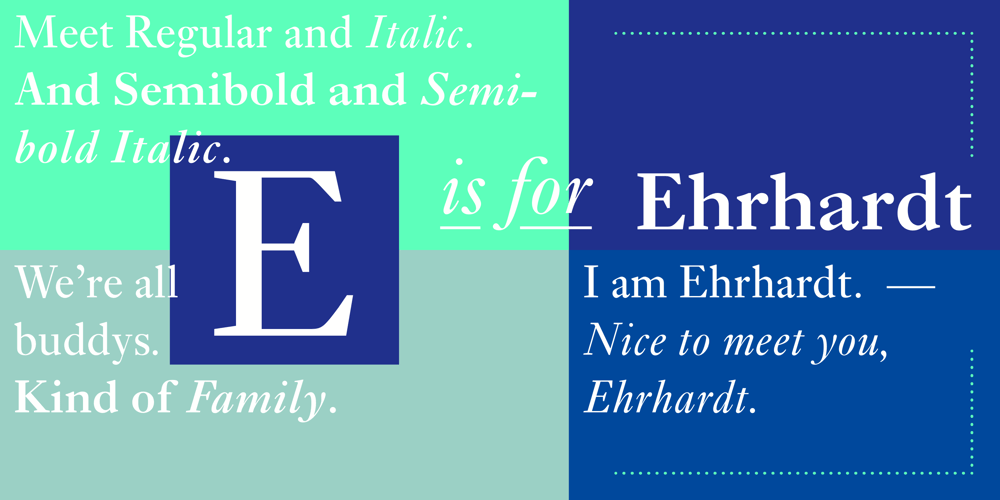
Ehrhardt MT
Ehrhardt MT font
Ehrhardt MT Font Family was designed by Monotype Design Studio and published by Monotype. Ehrhardt MT contains 4 styles and family package options. The Ehrhardt name indicates that this typeface is derived from the roman and italic typefaces of stout Dutch character that the Ehrhardt foundry in Leipzig showed in a late-seventeenth-century specimen book. The designer is unknown, although some historians believe it was the Hungarian Nicholas Kis. Monotype recut the typeface for modern publishers in 1937 to 1938. Ehrhardt has a clean regularity and smooth finish that promote readability, as well as a slight degree of condensation, especially in the italic, that conserves space. Ehrhardt is a fine text face, especially for books.